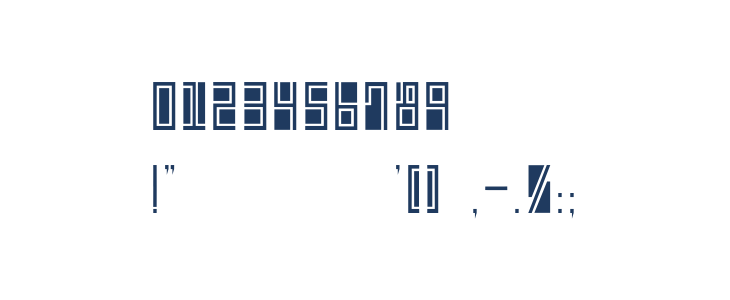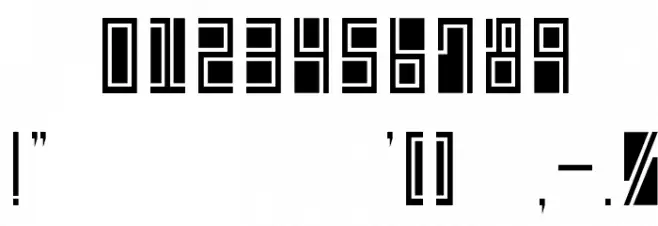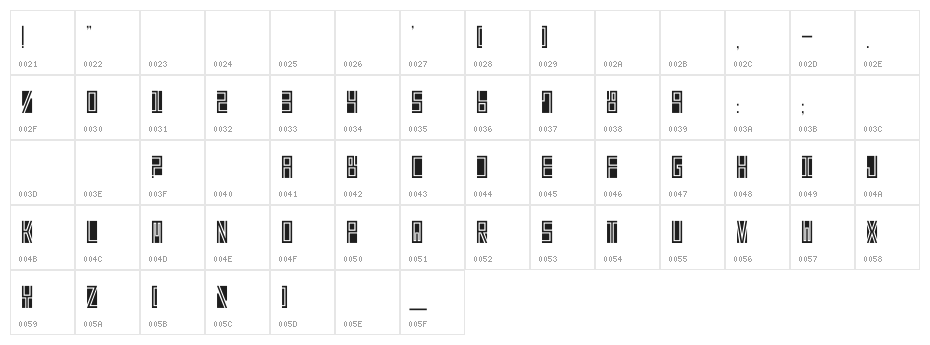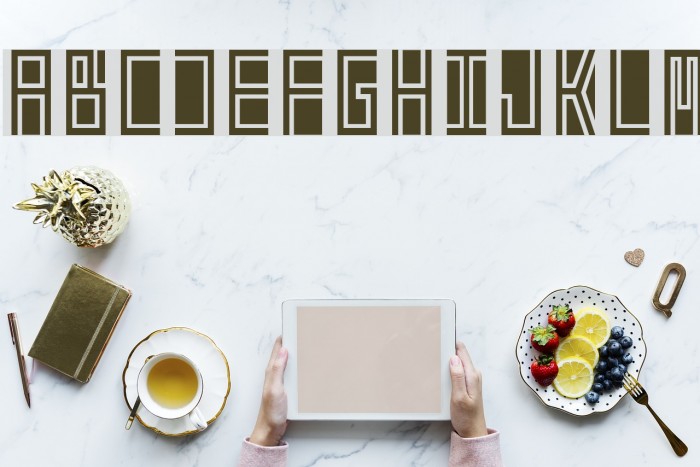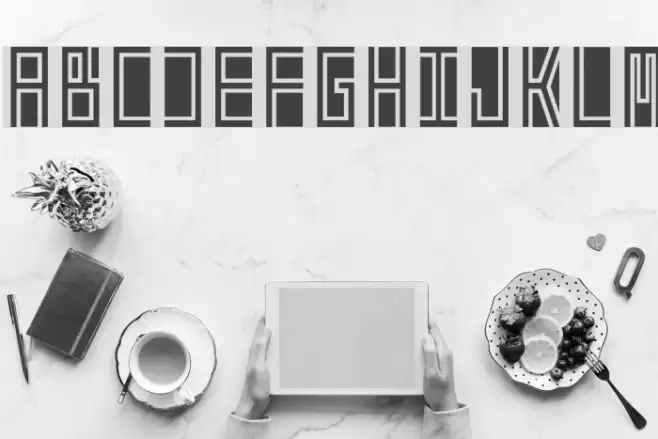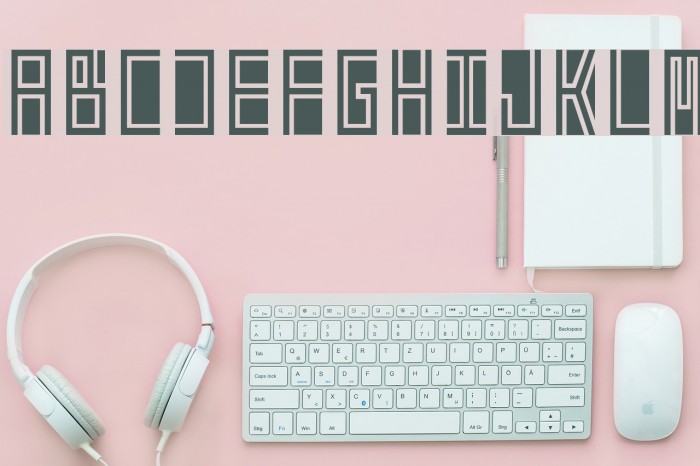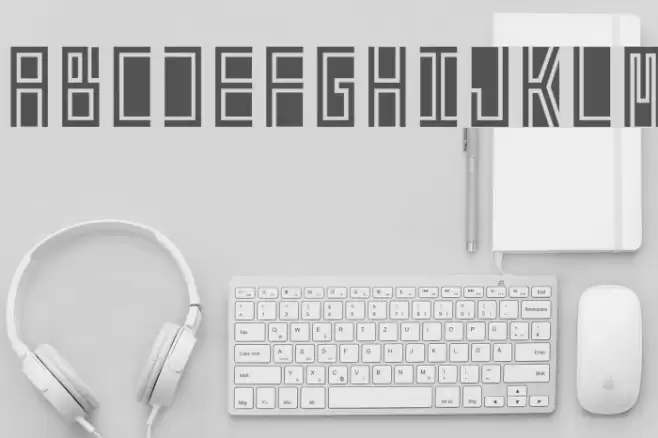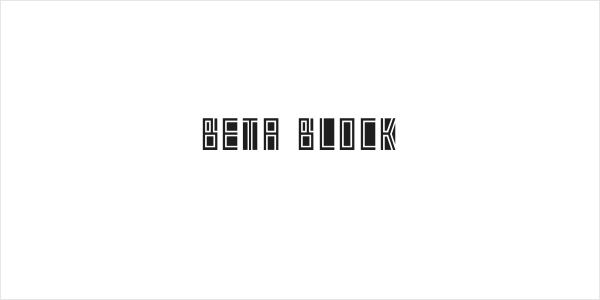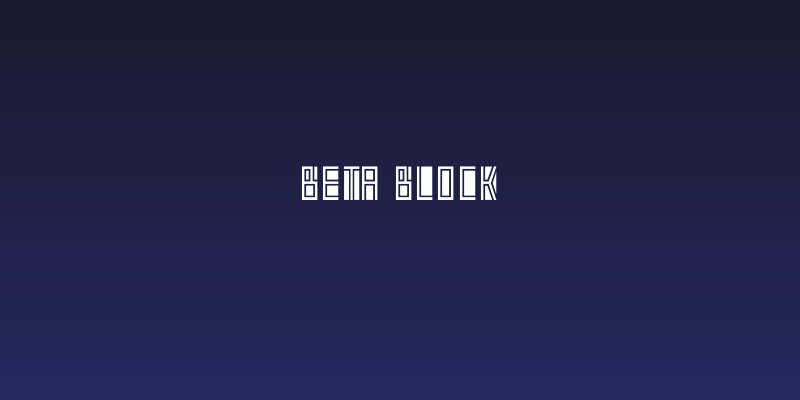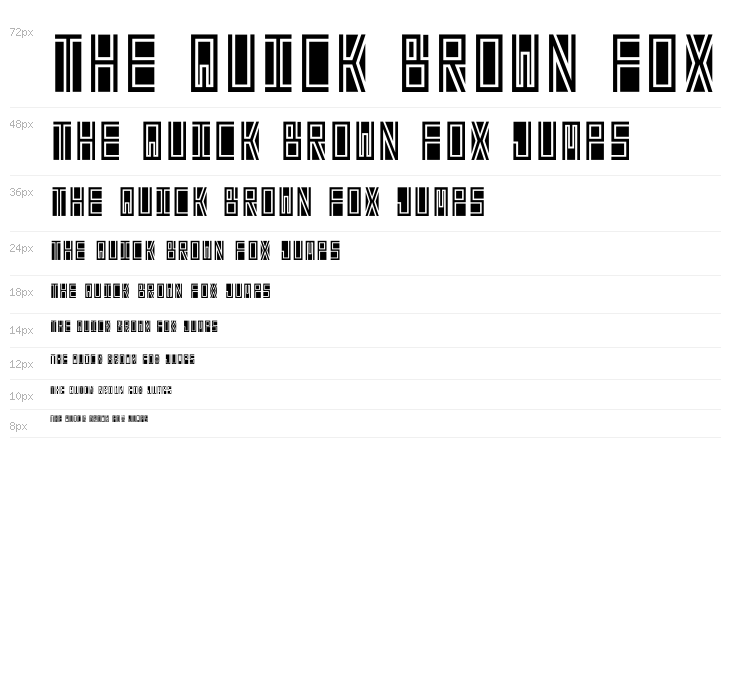
Beta Block Font
Beta Block Description
This font features a bold, geometric design with a blocky, futuristic aesthetic. Each character is constructed with thick, solid lines and sharp angles, creating a sense of strength and modernity. The uppercase and lowercase letters maintain a consistent style, with a focus on symmetry and uniformity. Numbers and special characters follow the same design principles, ensuring a cohesive look across all elements. The font's unique style makes it stand out, with a strong visual impact that is both eye-catching and memorable.
| Proposed Projects | Ideal for sci-fi themed projects, video game titles, tech branding, and modern posters. |